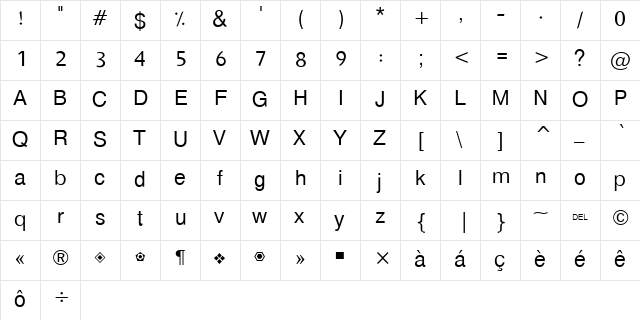
Hacen Liner Print-out Light Regular
| Foundry | Muhammad Hacen |
| Designer | Muhammad Hacen |
Design Context for Hacen Liner Print-out Light Typeface
Hacen Liner Print-out Light offers clean, dependable letterforms without strong stylistic allegiance, making it a practical choice for designers who need flexibility. Its slender proportions lend an understated elegance to any composition.